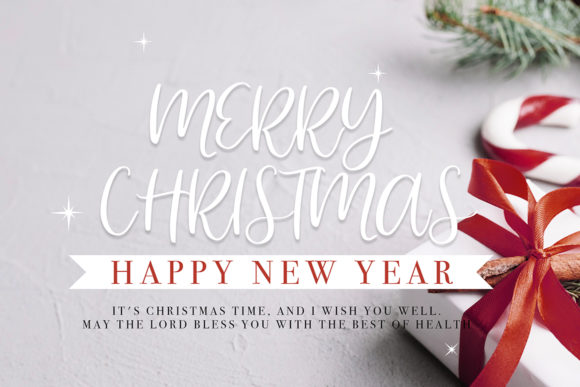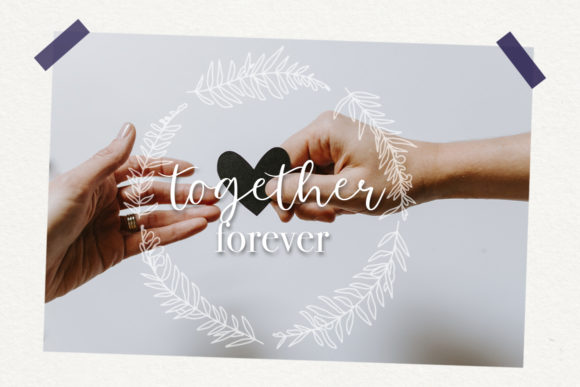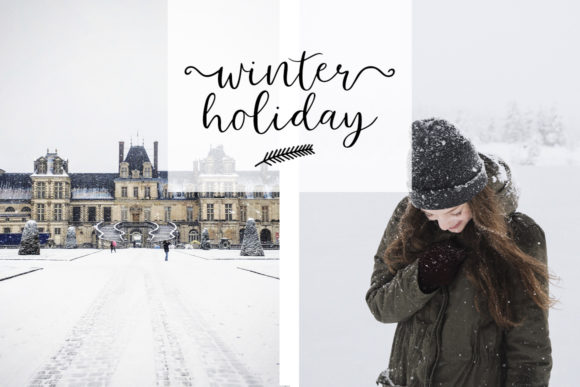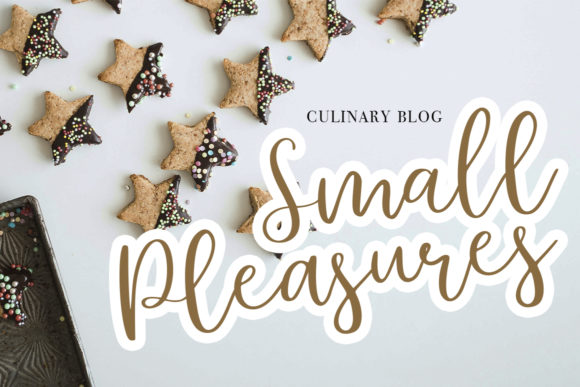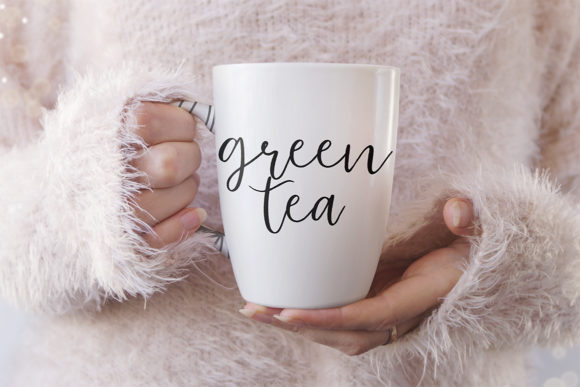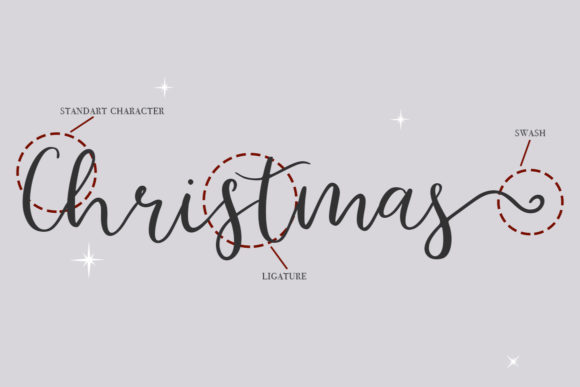
Introduction to Midnight Sleighride Font
Have you ever found yourself in a creative moment, surrounded by the quiet of the night, and suddenly an idea strikes you? The spark of inspiration ignites, and you can’t wait to bring it to life. This is exactly what happened to designers who discovered the enchanting Midnight Sleighride Font. This elegant script font has captured the hearts of many with its contemporary atmosphere and impeccable form.
As a valuable design resource, Midnight Sleighride Font offers a unique blend of classic calligraphy and modern style, making it an ideal choice for creative projects that demand sophistication and elegance. Whether you’re working on a high-quality brochure, a beautiful wedding invitation, or a stunning logo design, this font is sure to elevate your work to new heights.
Key Features of Midnight Sleighride Font
- Unique winter-themed design ideal for creative projects, such as holiday cards and winter wonderland-themed designs.
- High-quality font with a transparent background, allowing for seamless integration with various design elements.
- Features a distinctive, elegant design with intricate details, making it a great choice for adding a touch of sophistication to your designs.
Honest Review: Midnight Sleighride Font
I recently stumbled upon the Midnight Sleighride Font, and I’m excited to share my honest review. As a designer, I’m always on the lookout for high-quality design resources to elevate my creative projects.
What works well: ✨ The font is a stunning, hand-drawn creation that’s perfect for adding a touch of whimsy to your designs. The transparent background makes it easy to layer with other elements, and the free download is a bonus! The font’s unique style and flair make it an excellent choice for creative projects that require a bit of magic.
- ✨ Unique, hand-drawn style
Limitations: ⚠️ While the font is a great addition to any design resource collection, it may not be suitable for projects that require a more straightforward, modern aesthetic. Additionally, the font’s hand-drawn style may not be ideal for text-heavy designs or projects with tight font sizes.
Overall impression: I’m thoroughly impressed with the Midnight Sleighride Font. Its high-quality design and unique style make it an excellent choice for designers looking to add a touch of magic to their creative projects. With its transparent background and free download, it’s a must-have for any design resource collection.
For the best results, pair the Midnight Sleighride Font with a contrasting background color to make your design stand out. Experiment with different font sizes and styles to add depth and visual interest to your creative project.
Midnight Sleighride Font is commonly used in wedding invitations, holiday cards, and other festive designs. Its elegant and sophisticated look makes it perfect for creating high-end designs with transparent backgrounds.